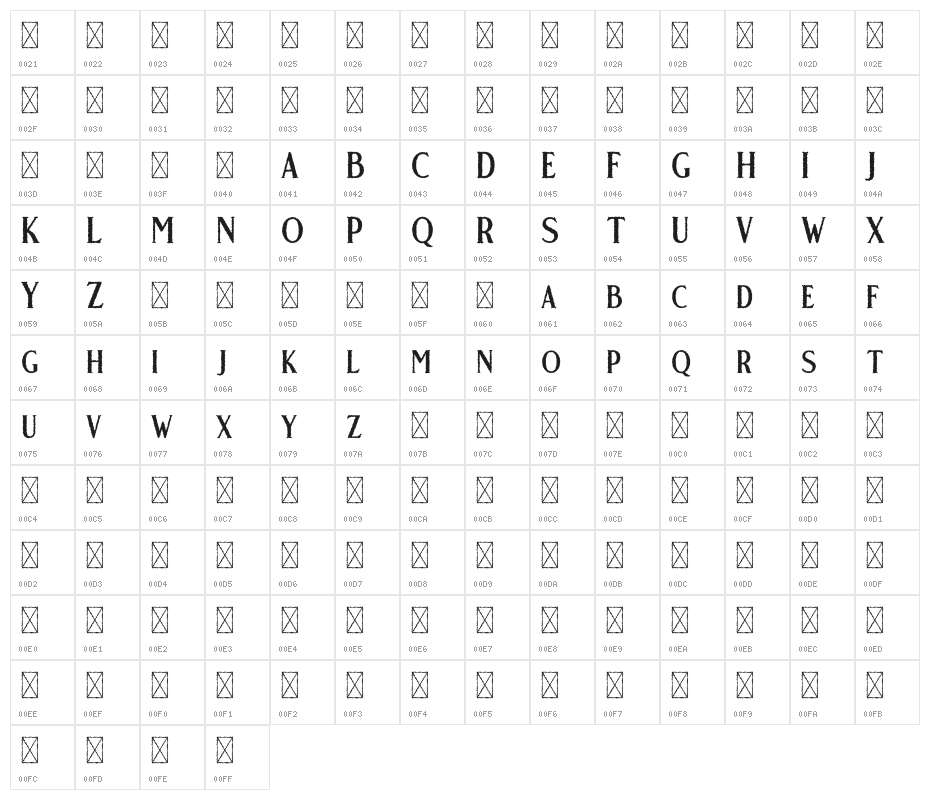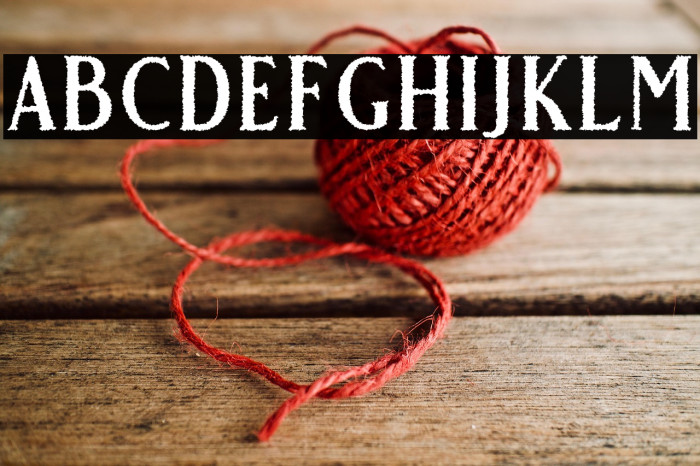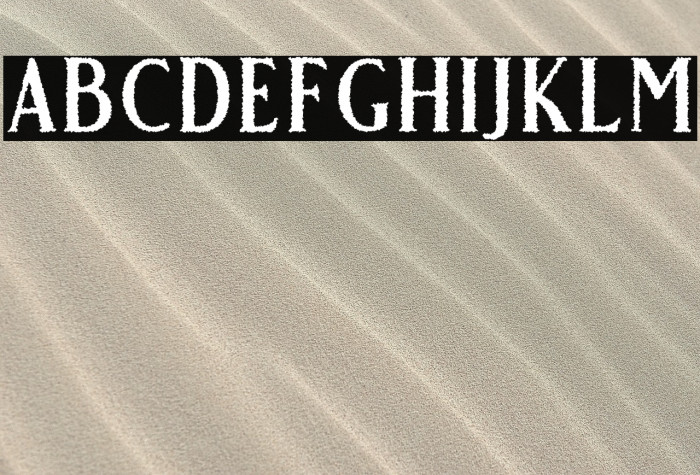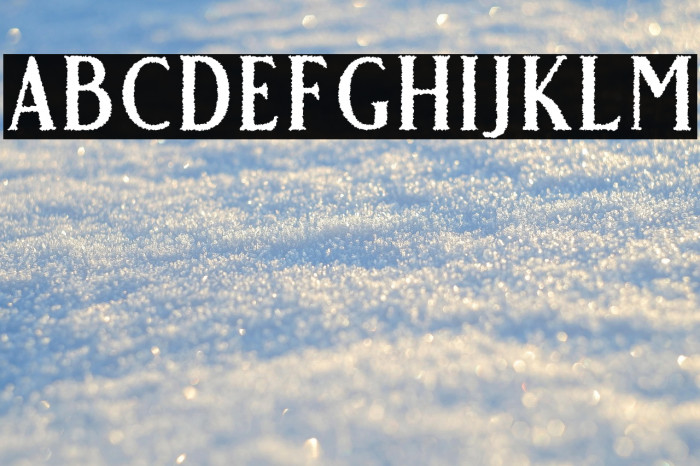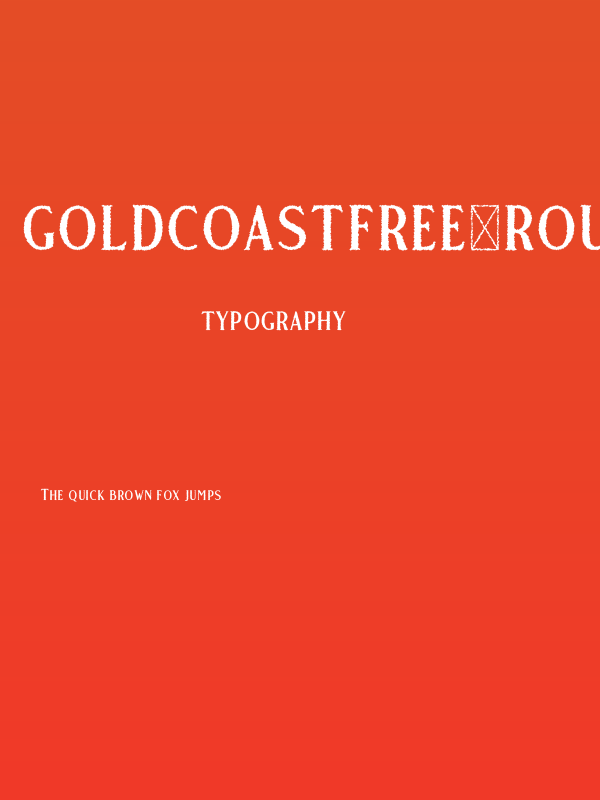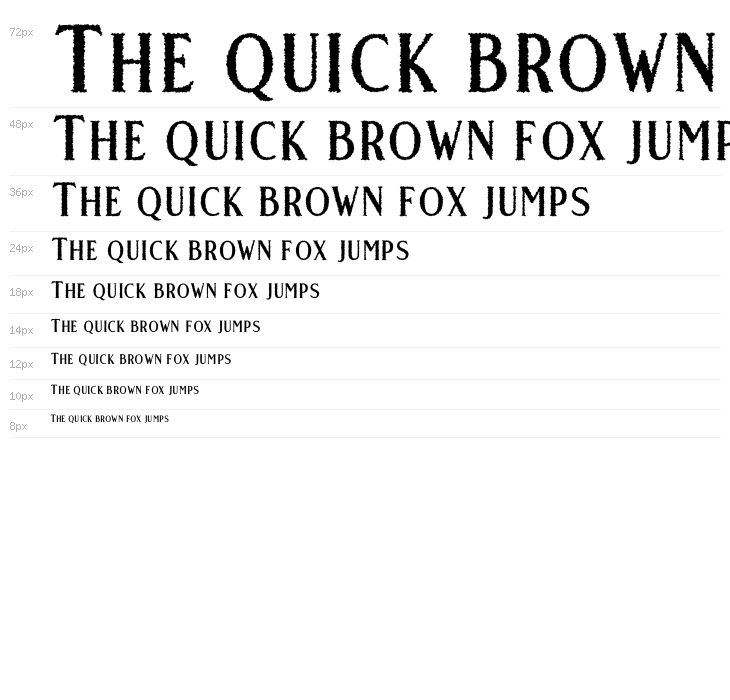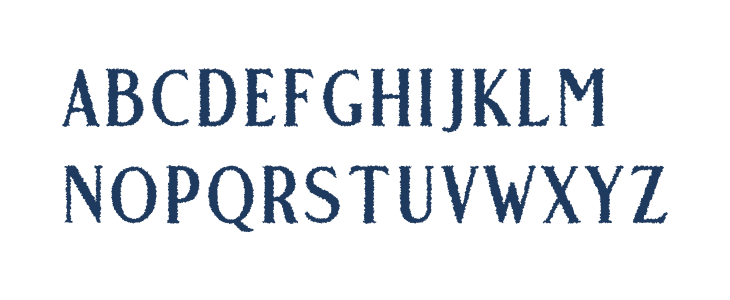
GoldCoastFree-Rough Font
GoldCoastFree-Rough Description
This font features a rough, textured appearance that gives it a hand-crafted, vintage feel. The uppercase letters are bold and slightly condensed, with a noticeable texture that mimics the look of aged print or distressed ink. The strokes are uneven, adding to the rustic charm and making it ideal for projects that require a touch of authenticity and character. The font lacks lowercase letters and numerals, focusing solely on uppercase characters, which enhances its suitability for impactful headlines and titles. The overall style is reminiscent of old-world craftsmanship, making it perfect for designs that aim to evoke nostalgia or a sense of history.
| Width | Condensed |
| Overall Style | Vintage |
| Proposed Projects | Ideal for vintage posters, rustic branding, historical-themed events, and artisanal product packaging. |